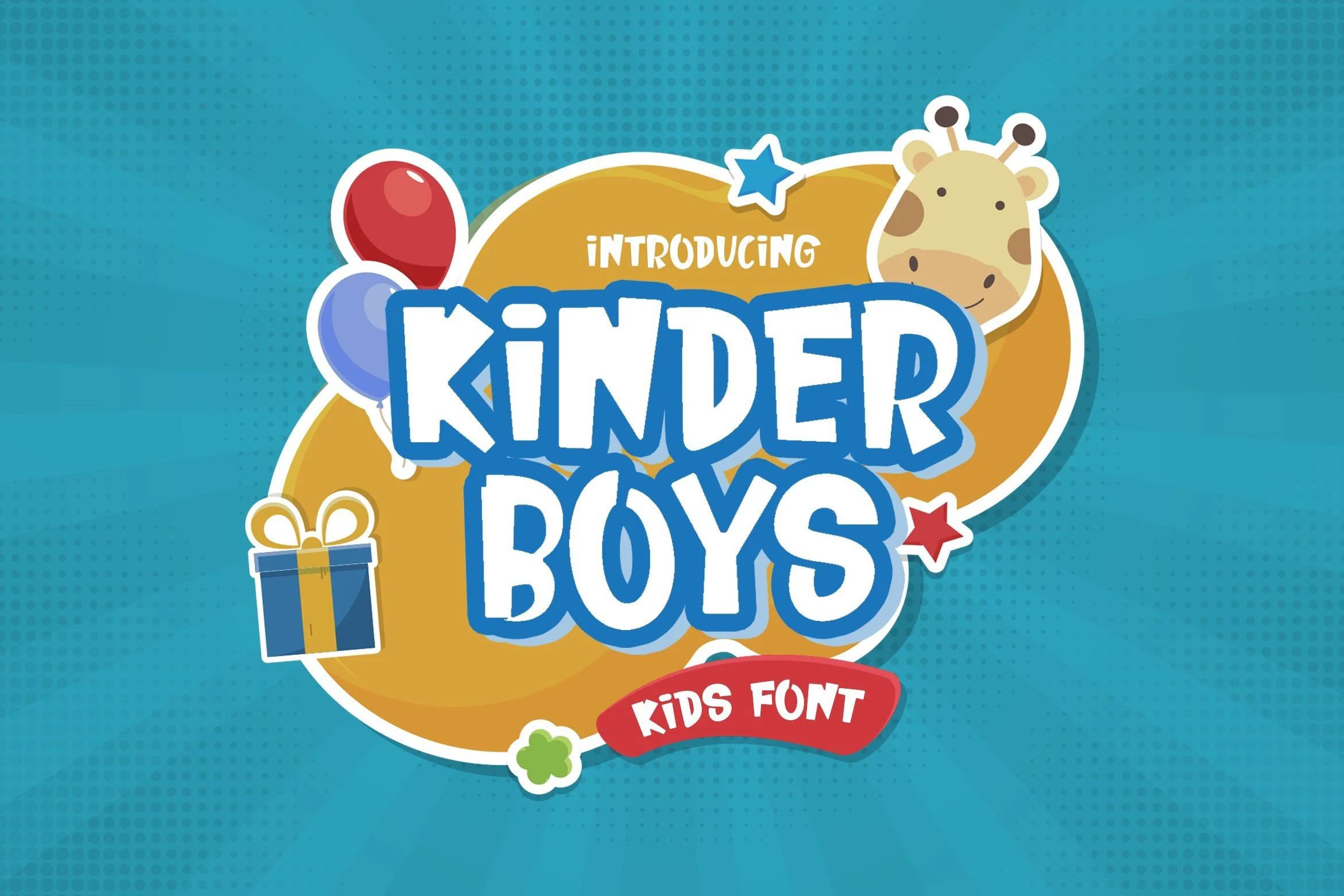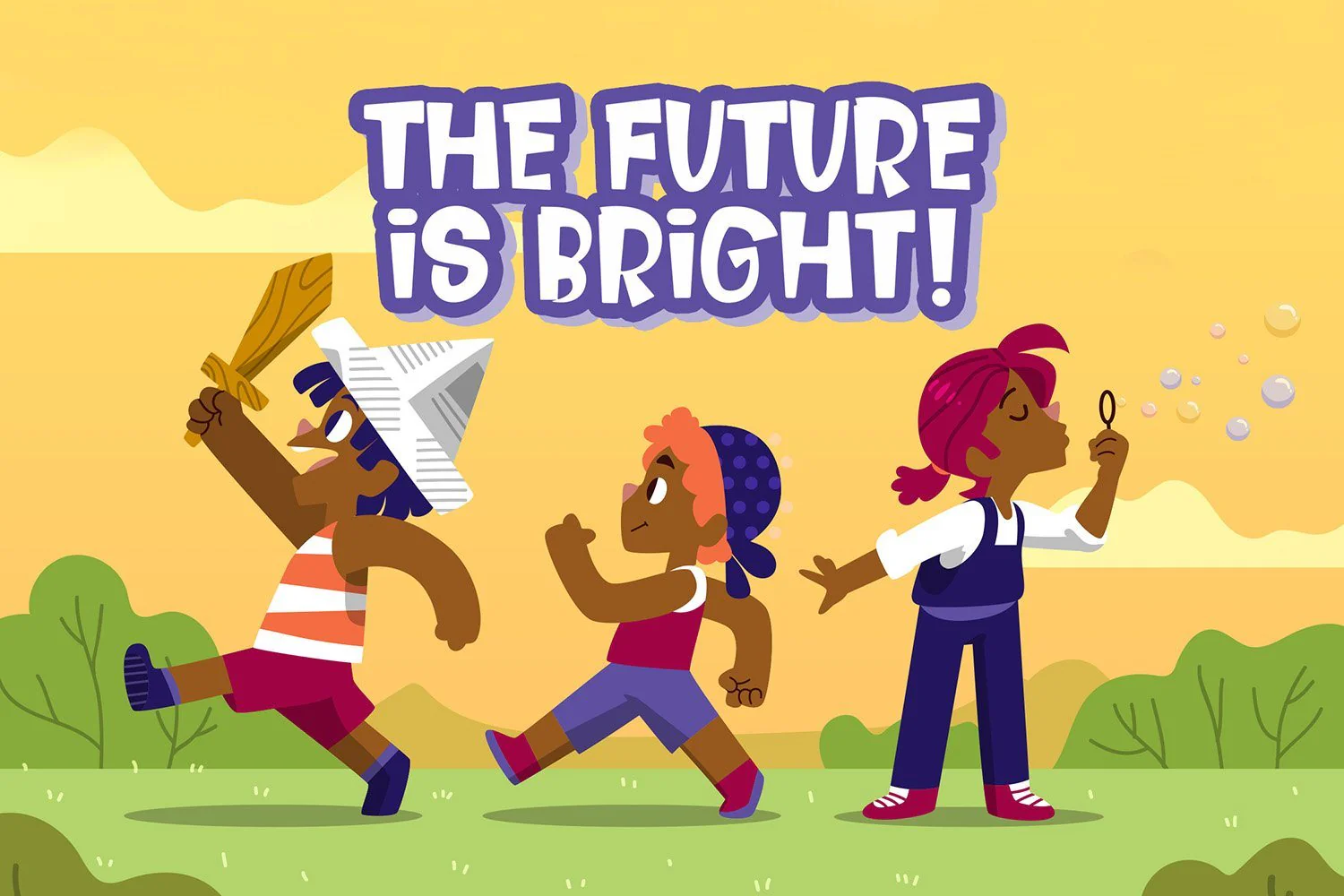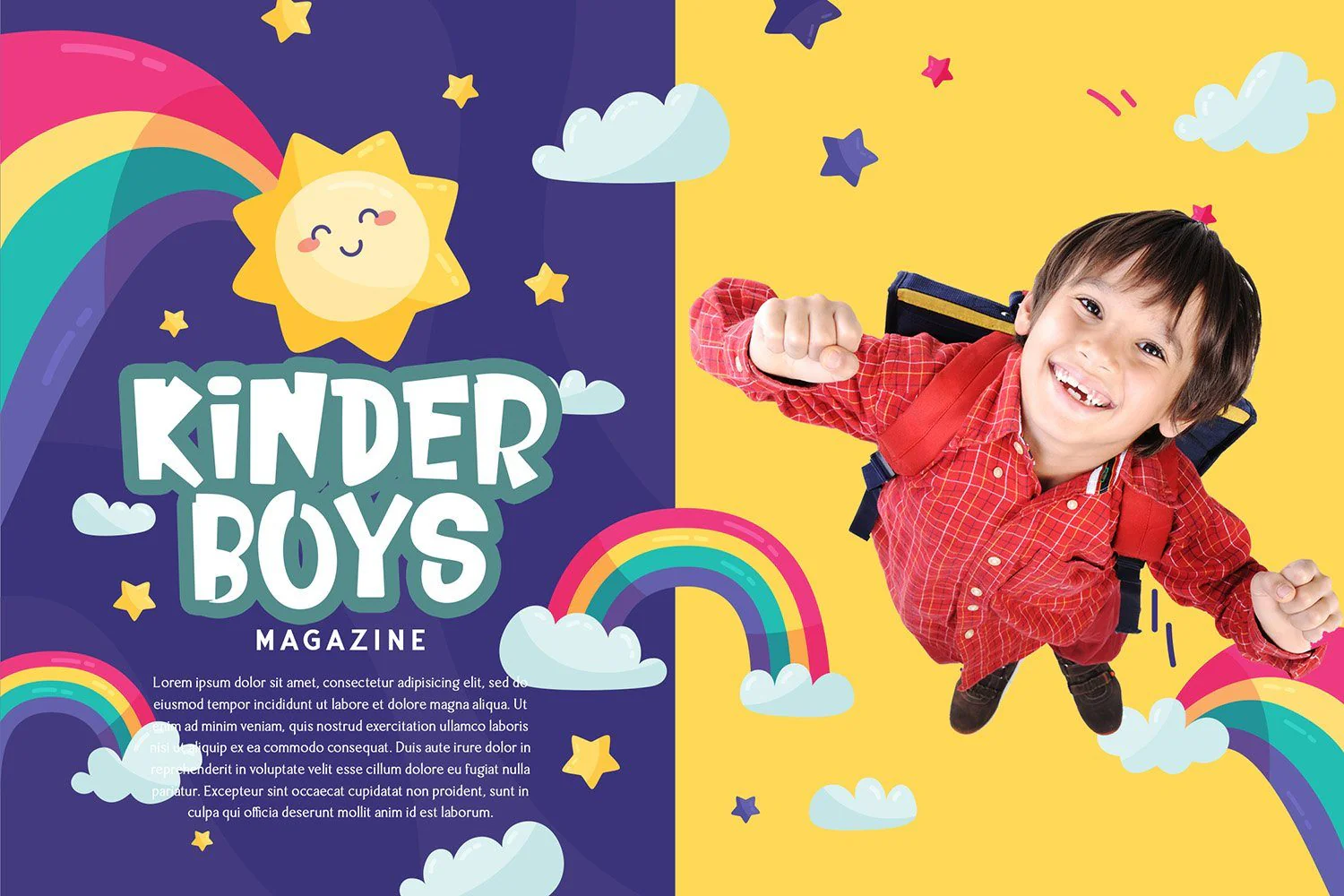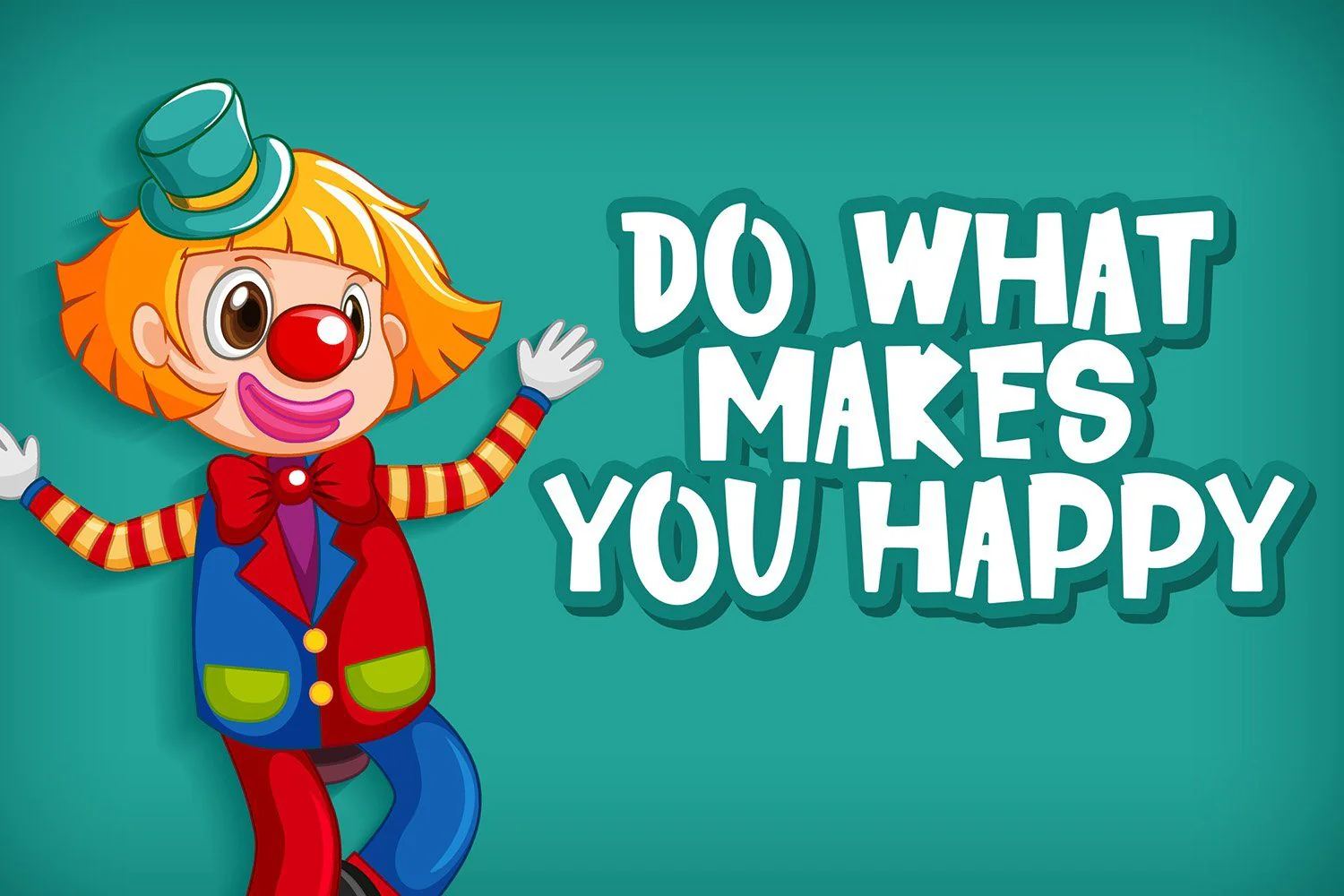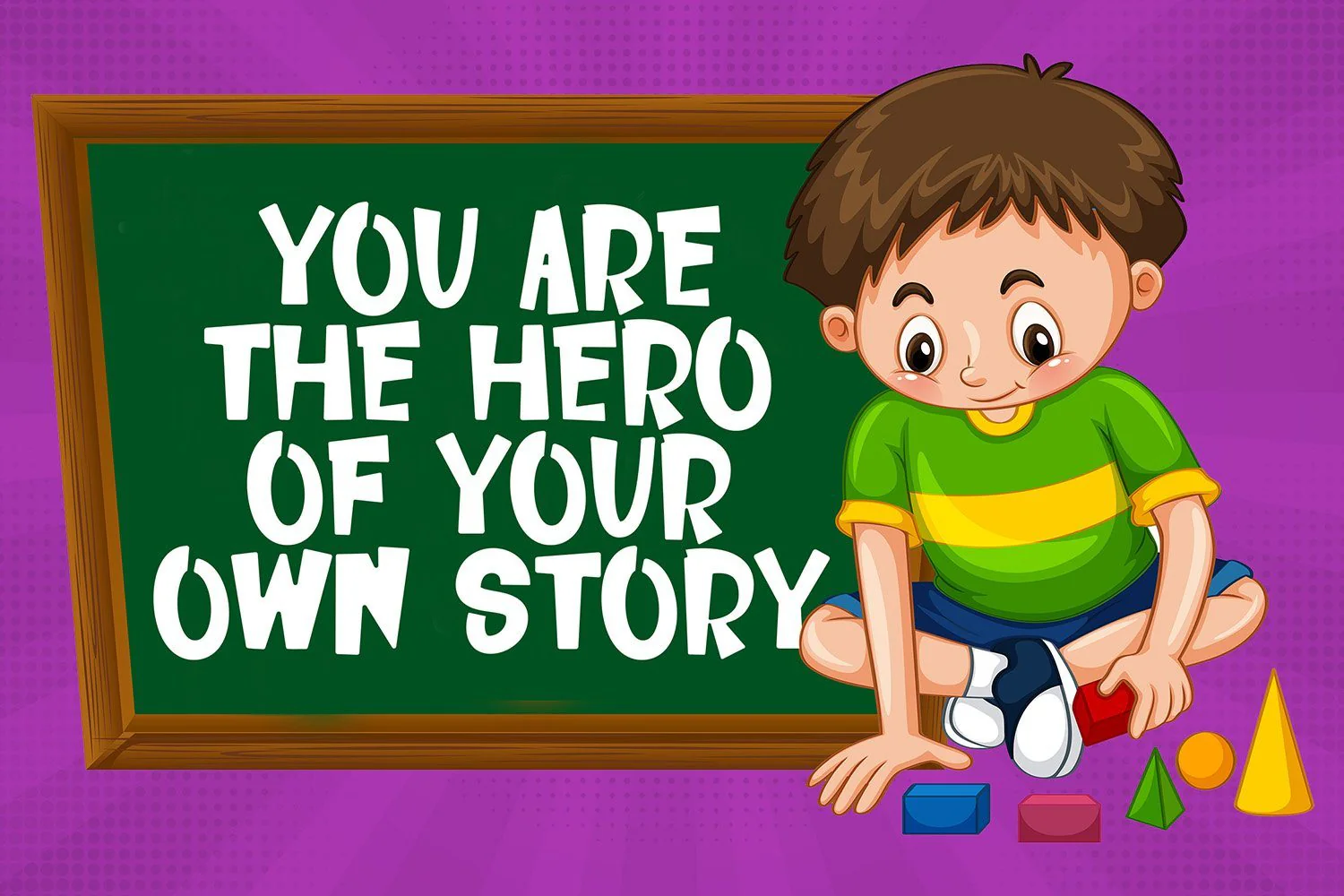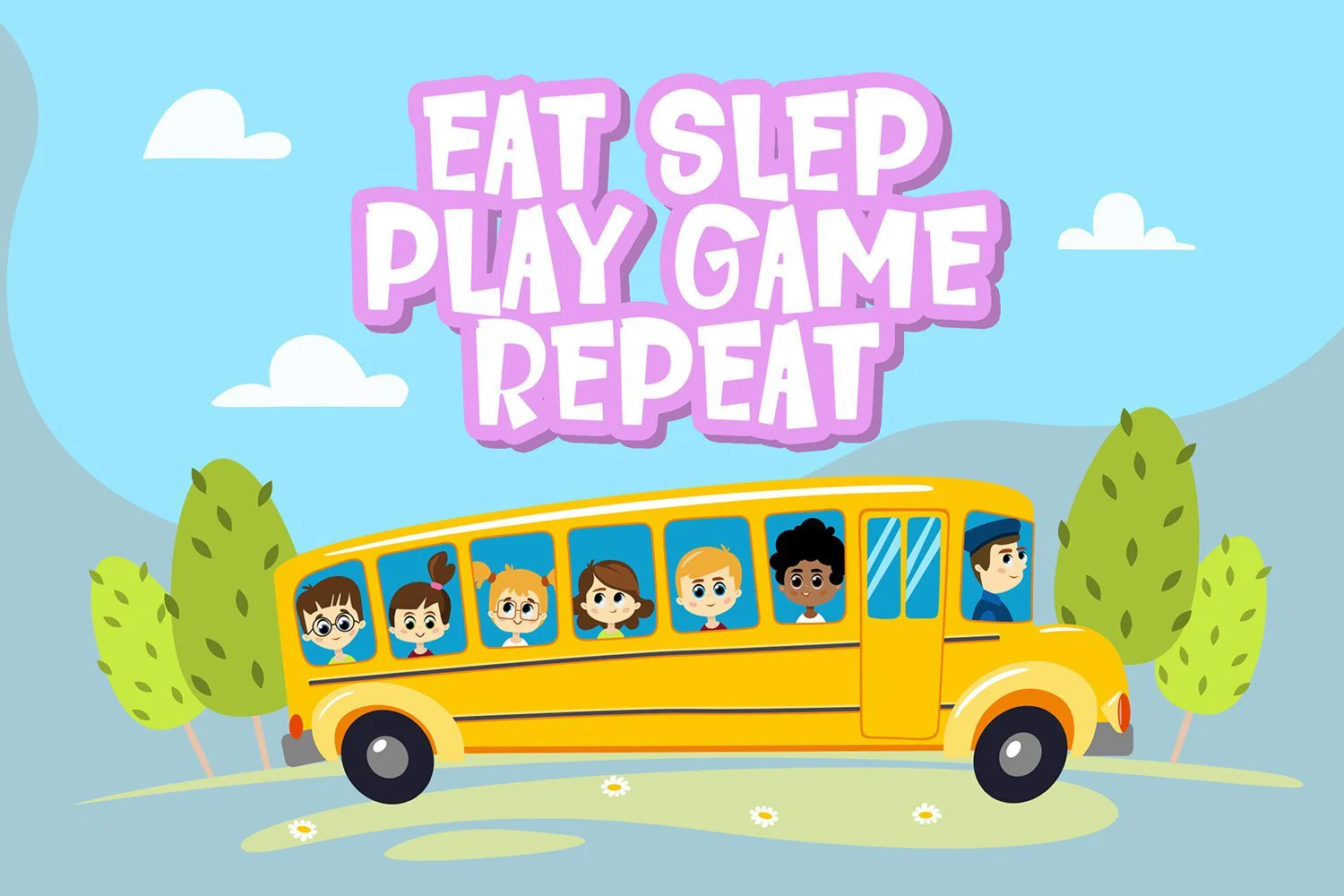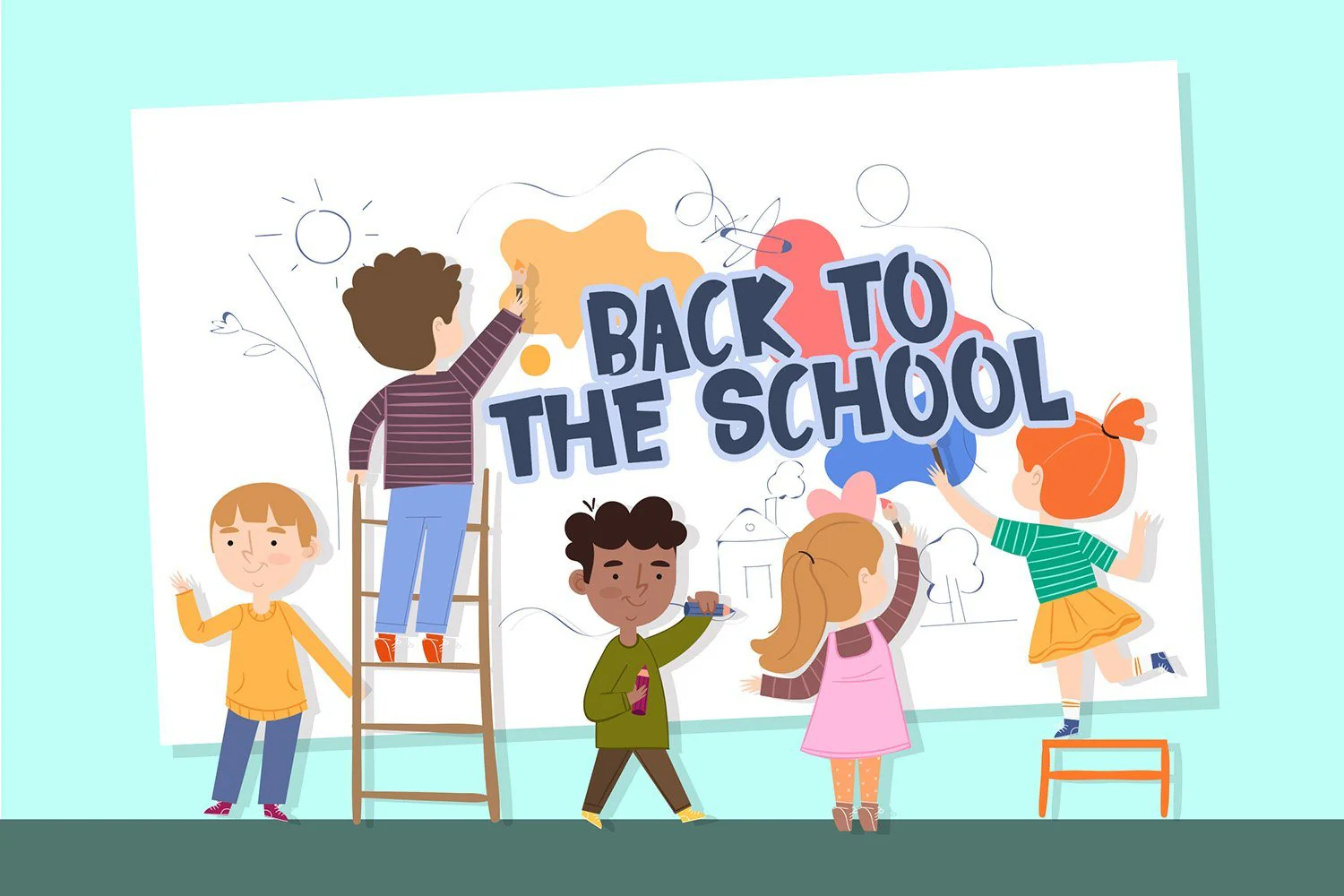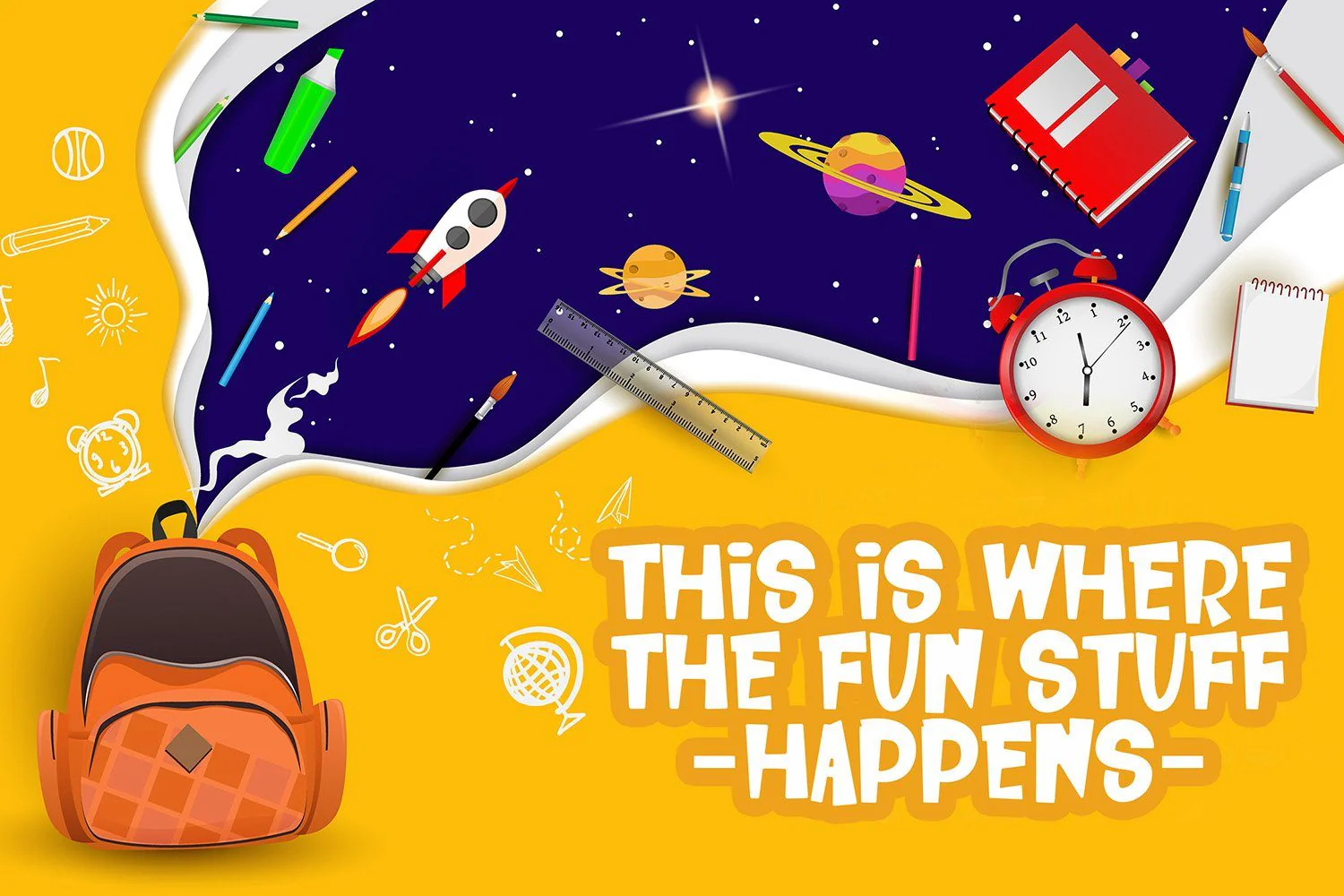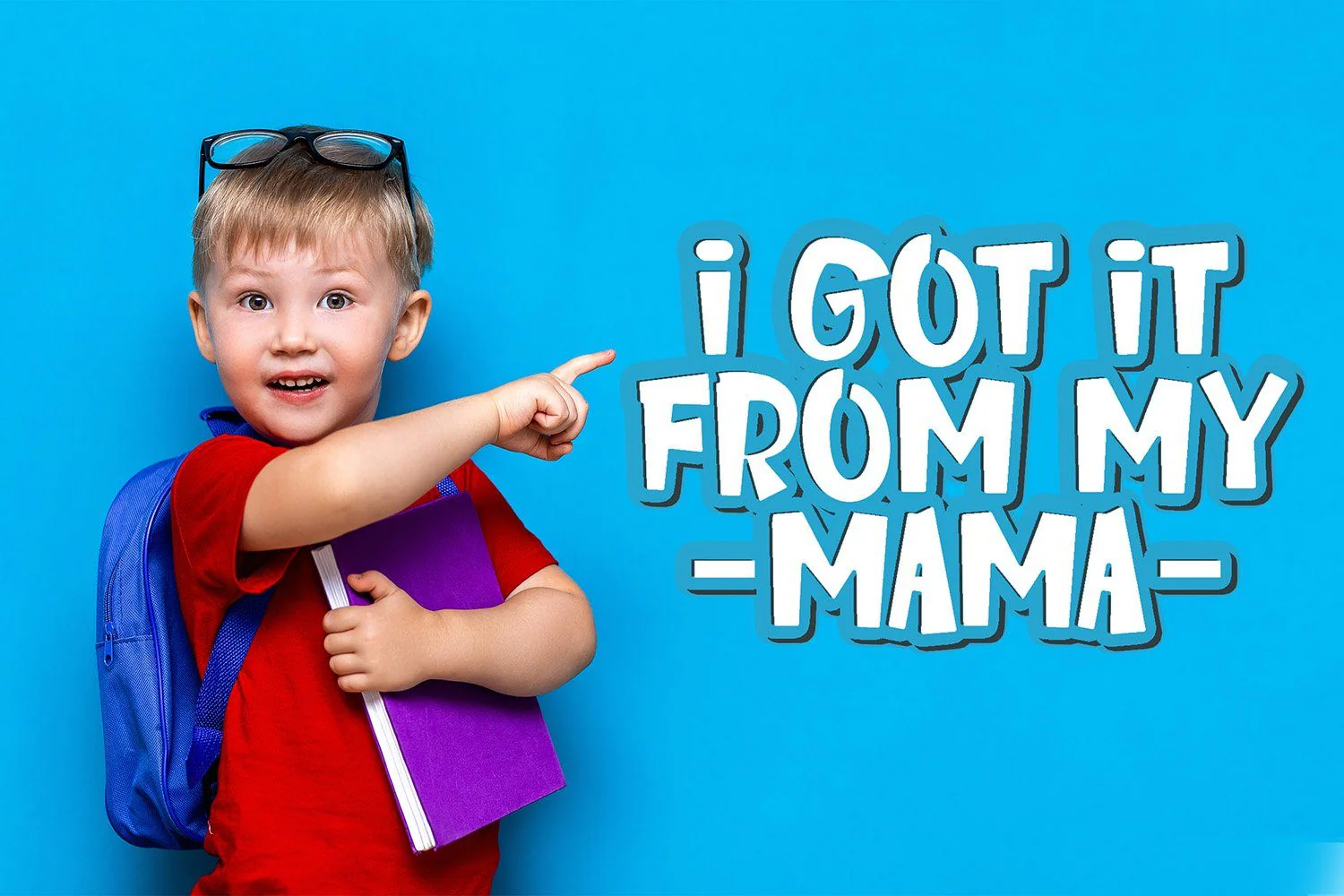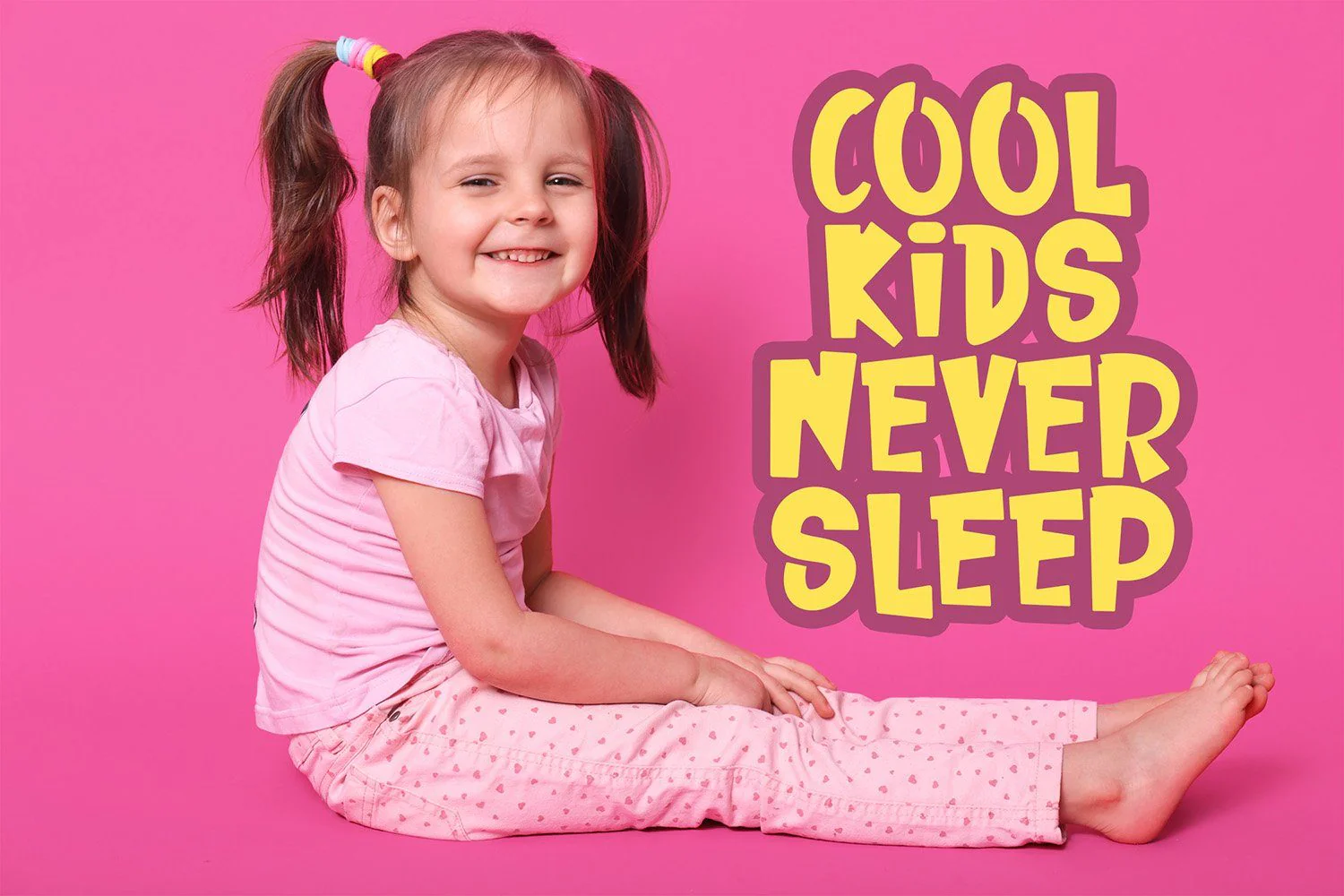
Kinder Boys - Playful Font
Introducing Kinder Boys - Playful Font
Kinder Boys is a playful font that specially crafted for children, Boys, Kindergarten, Birthday, Kid, Cartoon, and Comic purposes.
The Kinder Boys cheerful font contains Modern, Elegant, Creative, Professional and Unique Concept.